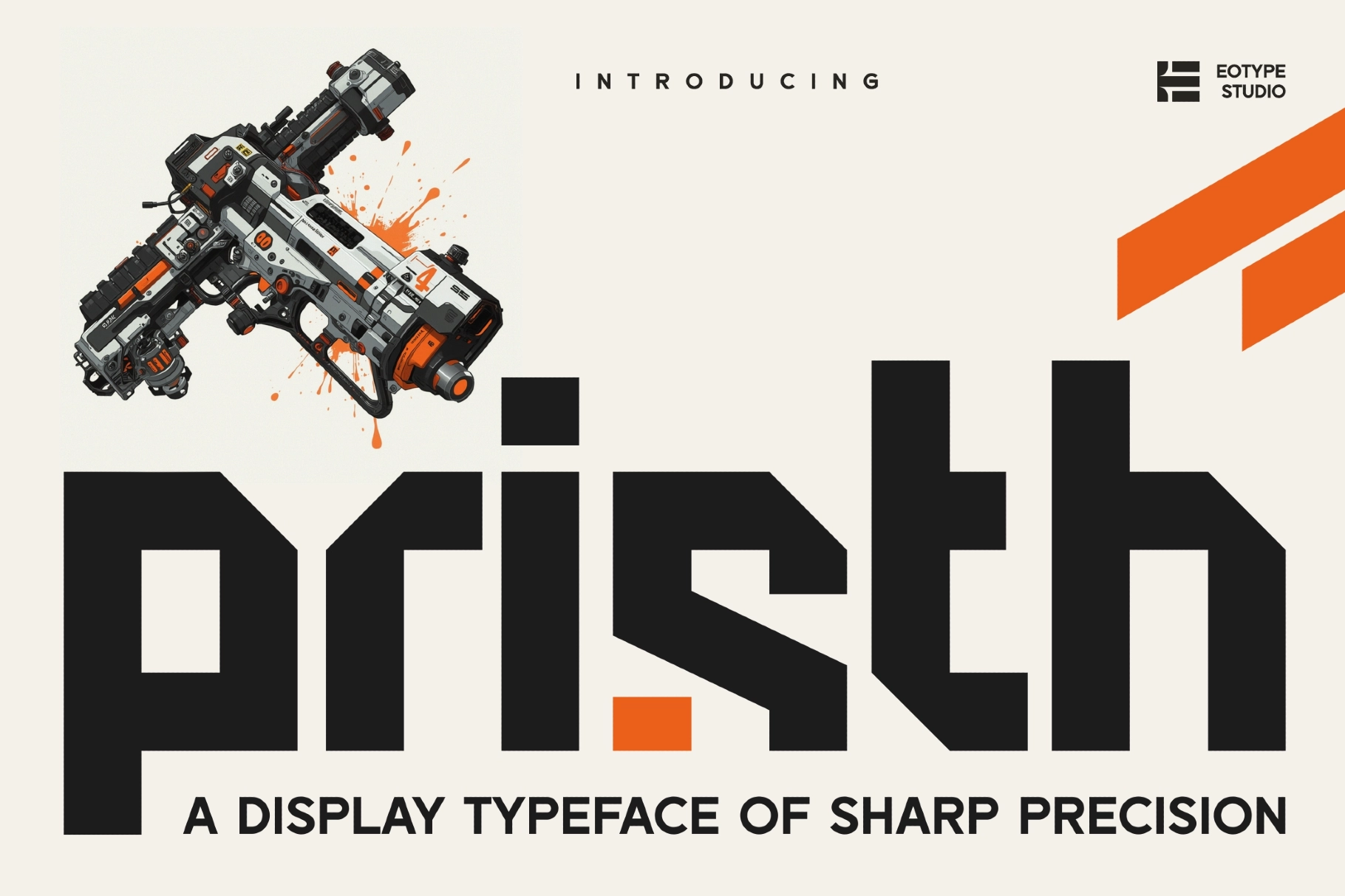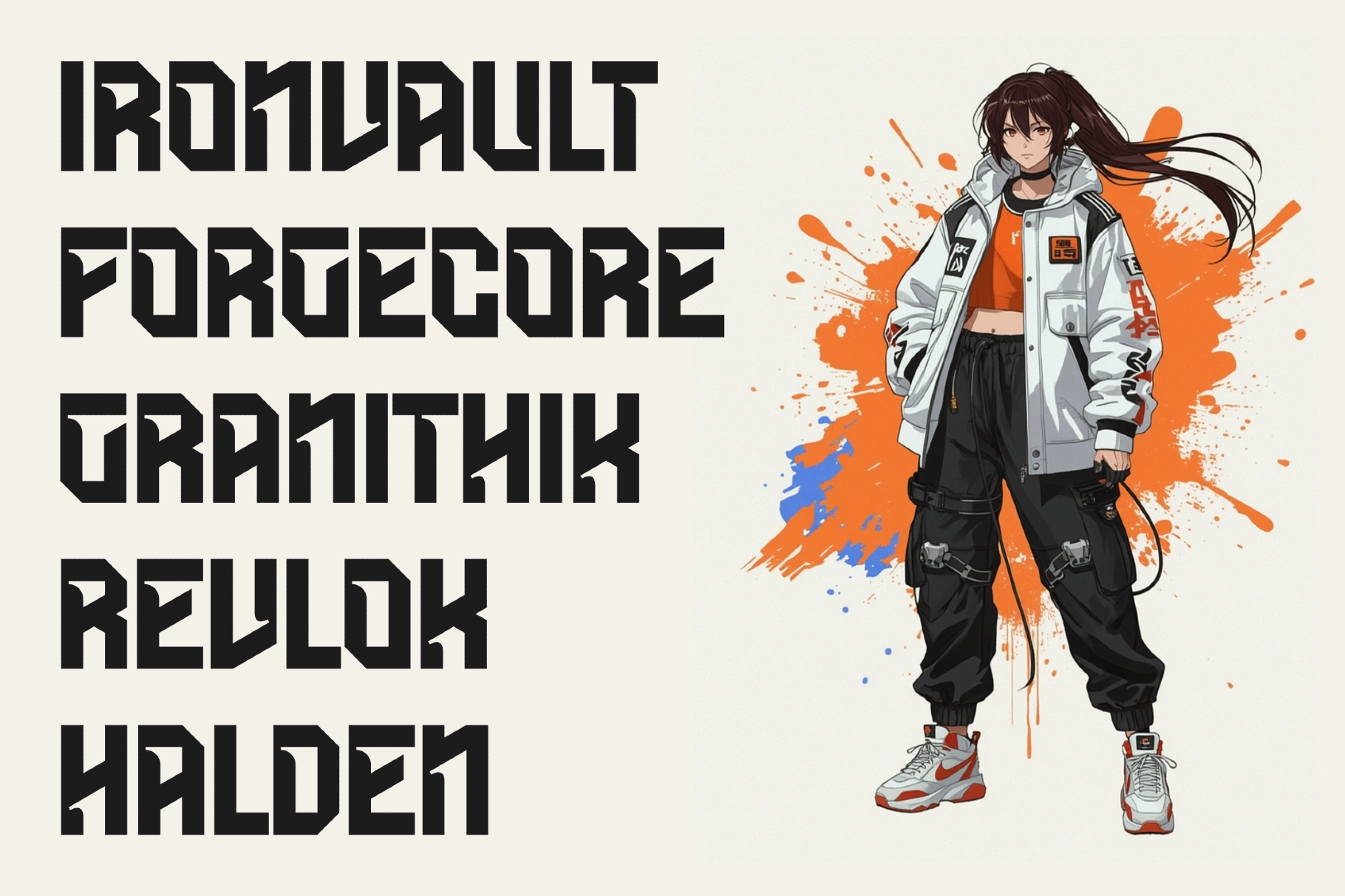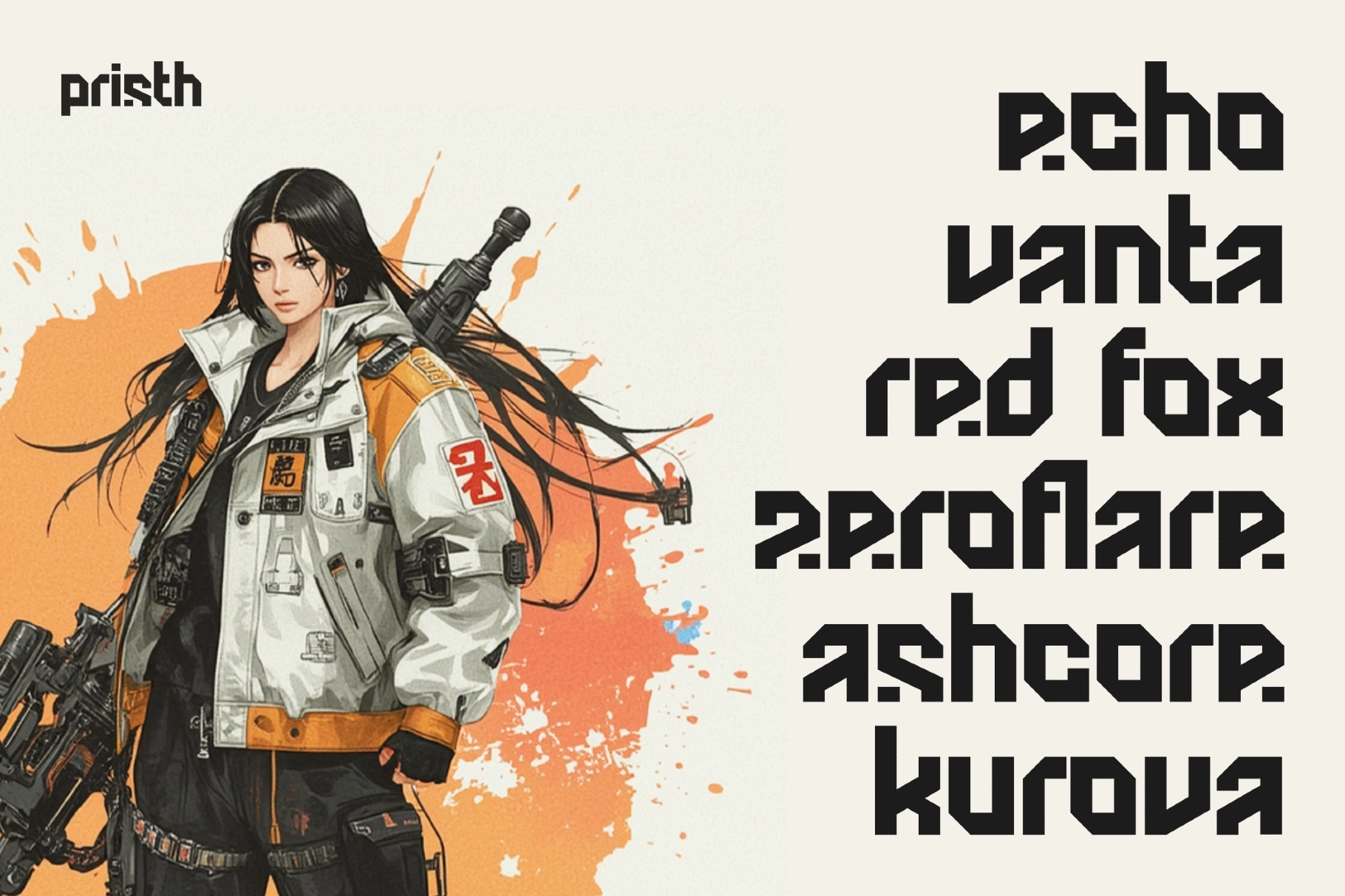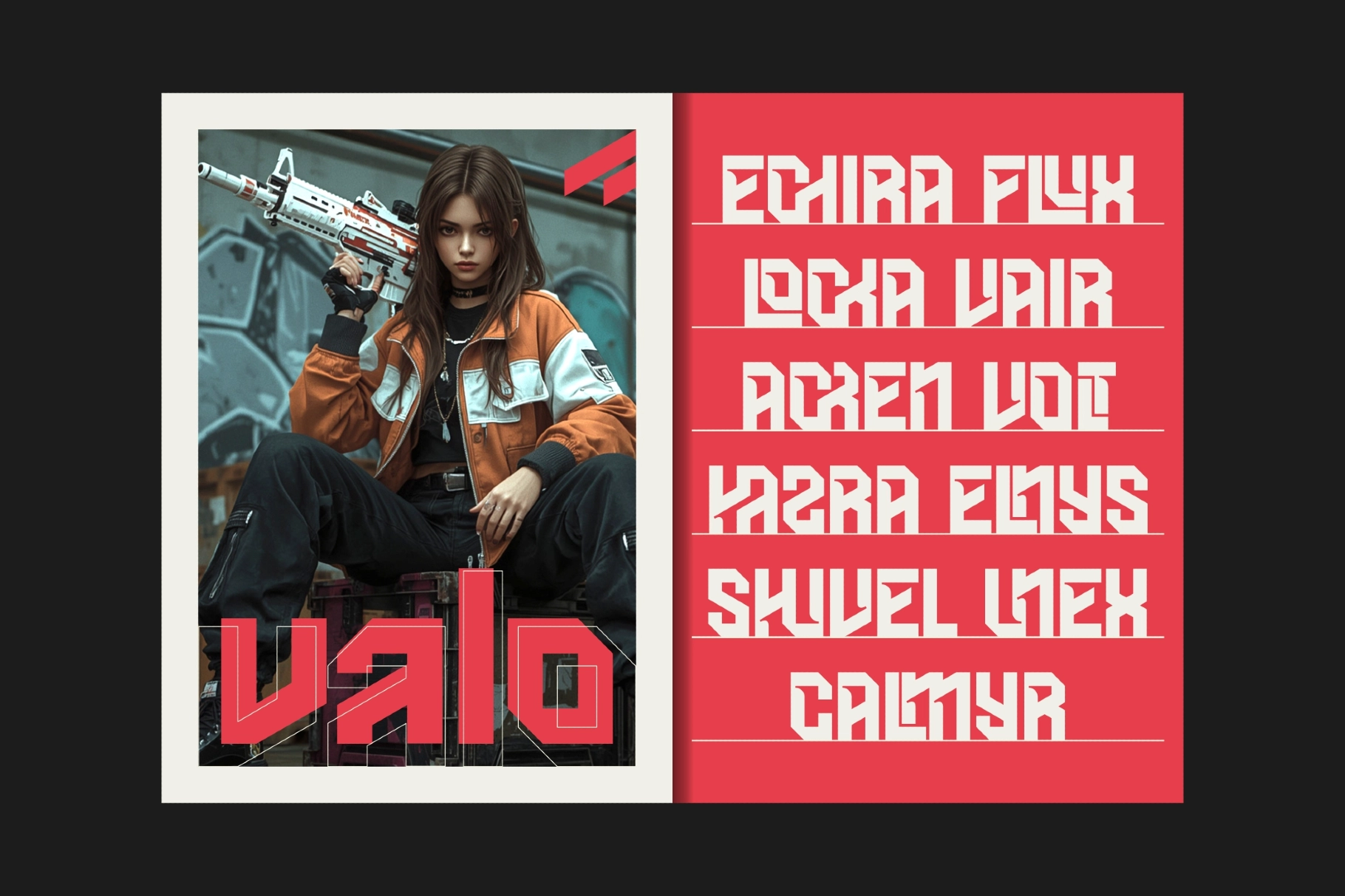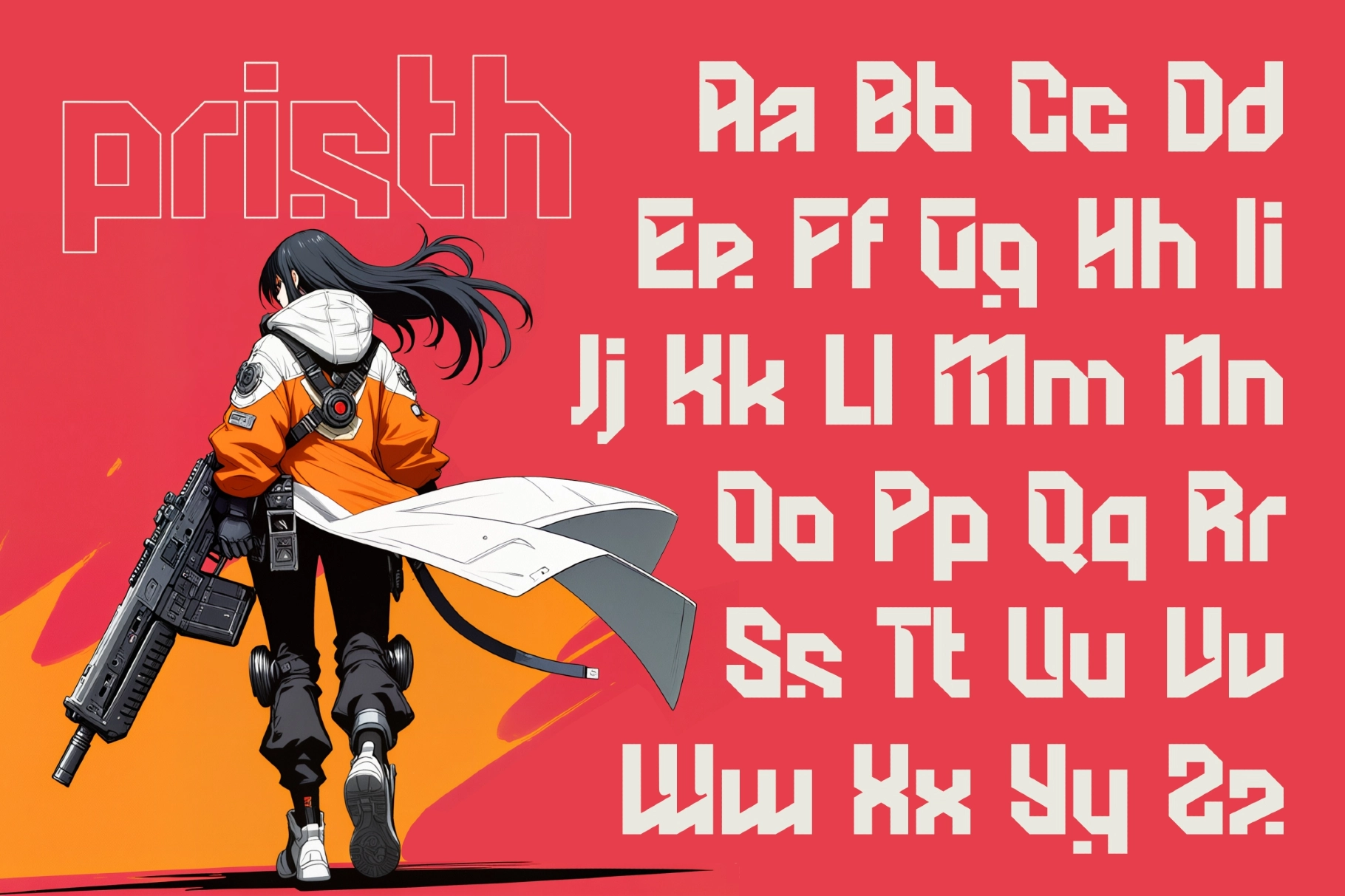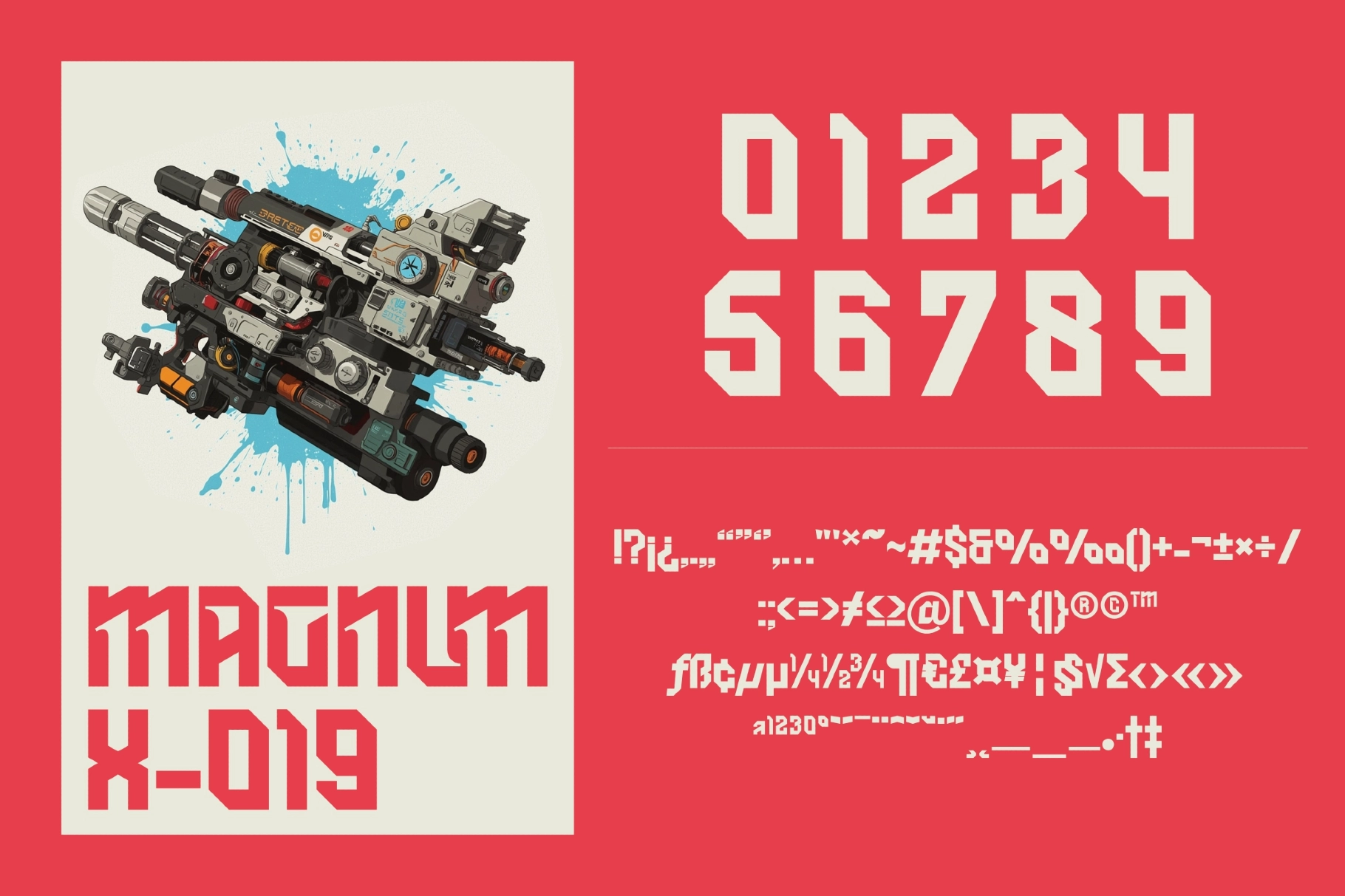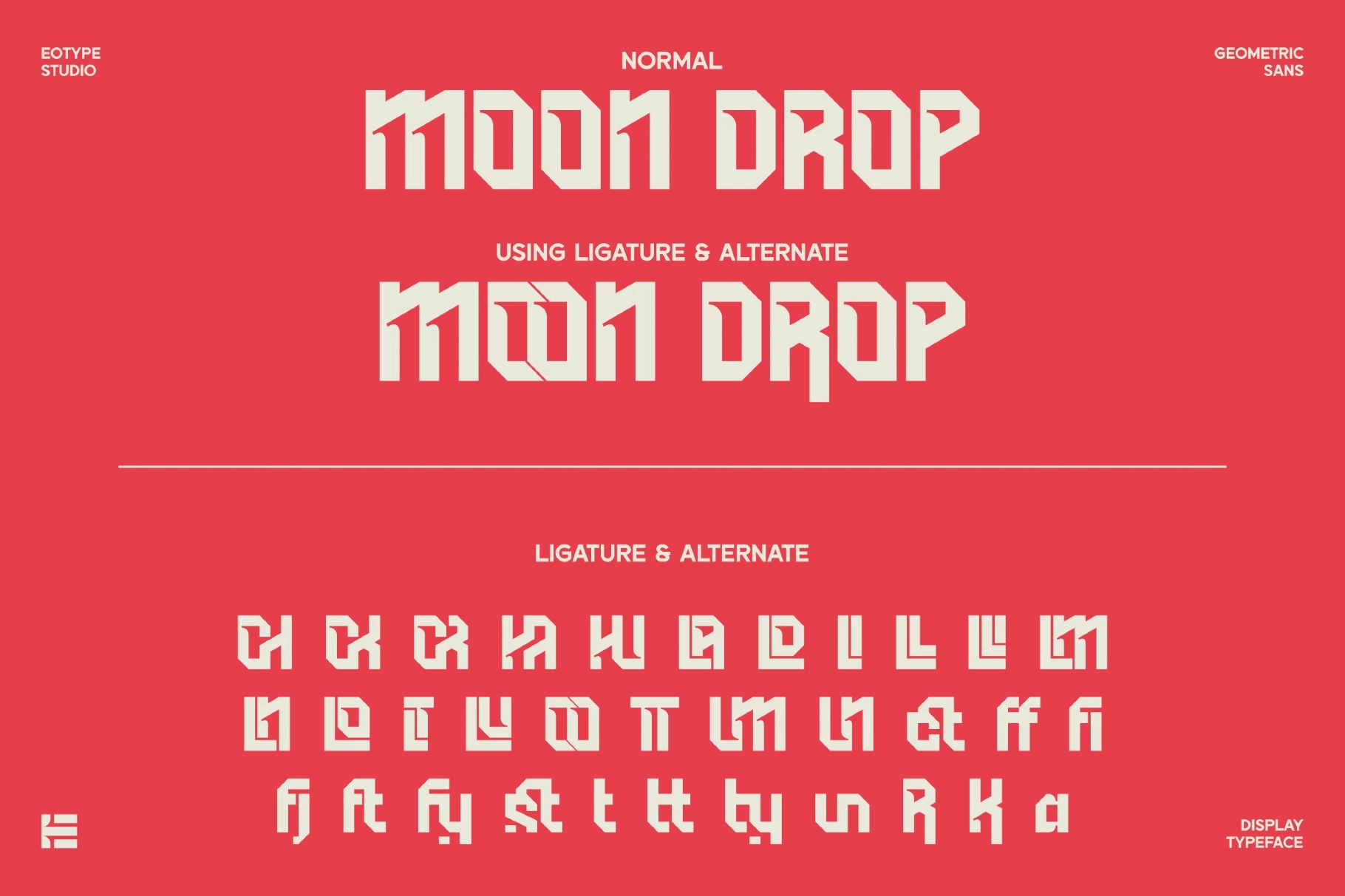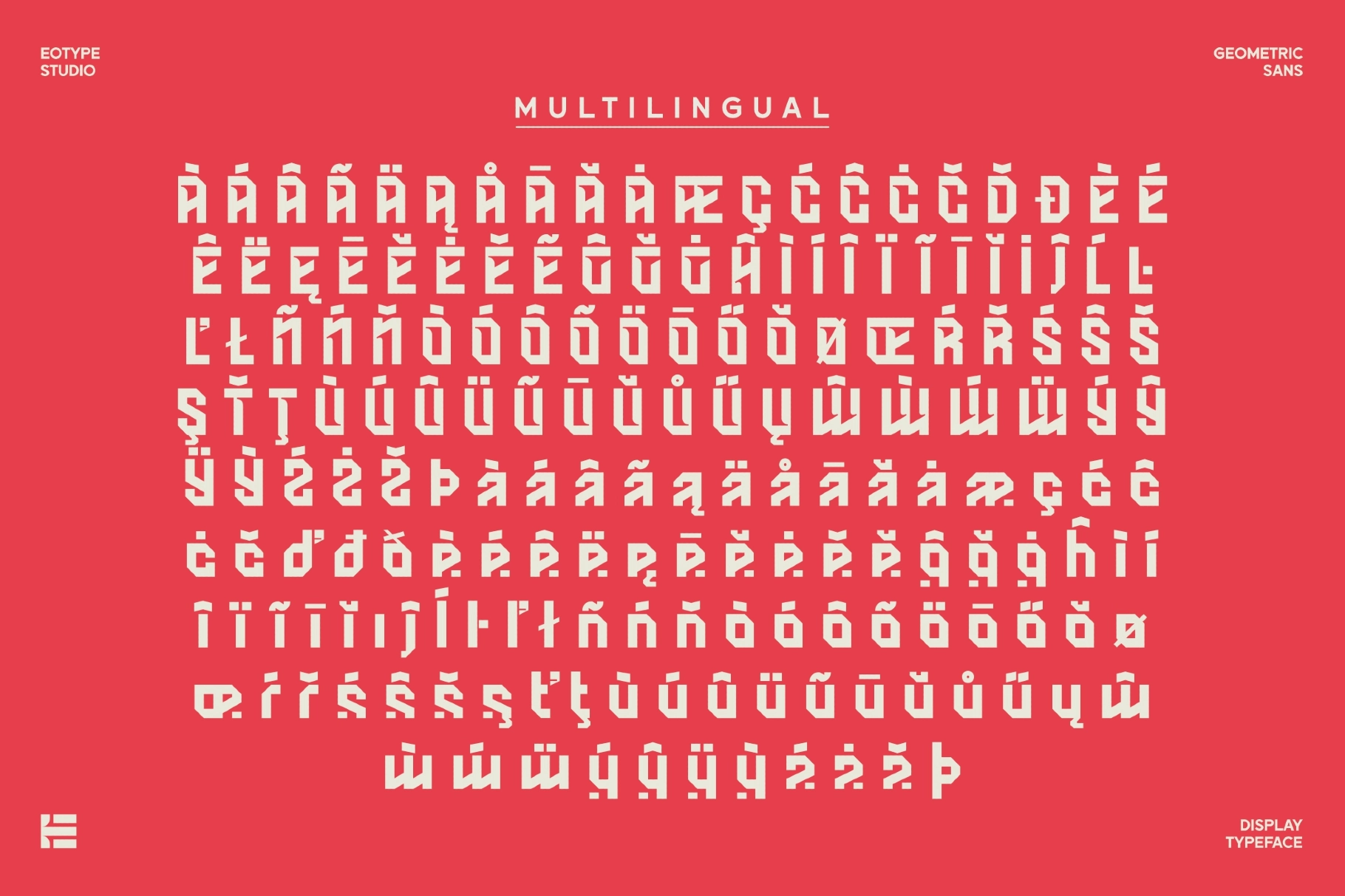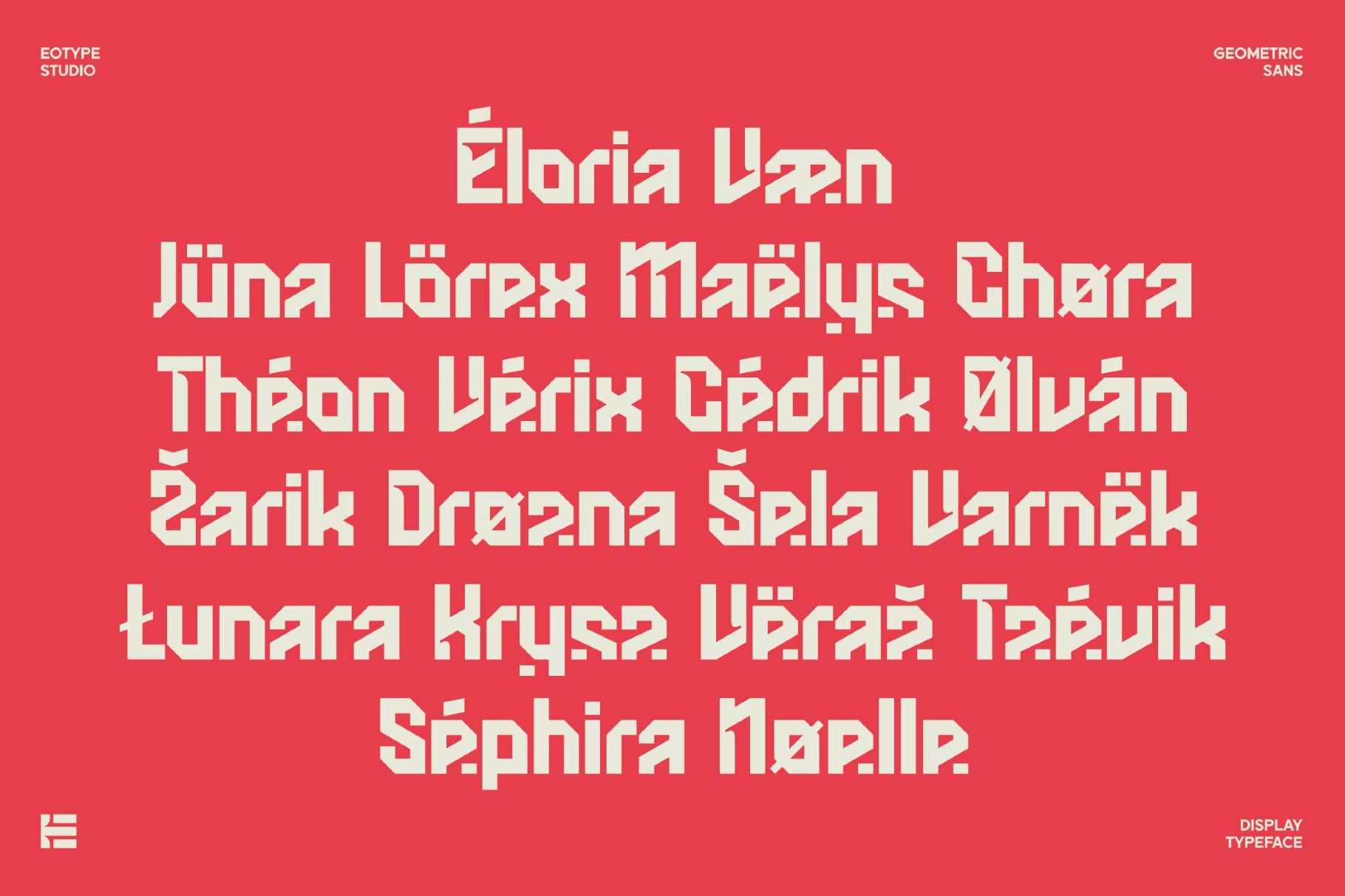
Pristh - Bold Tech Display Font
Pristh
Pristh is a bold tech display font built from angular, blocky letterforms that cut corners at sharp diagonals instead of rounding them off. Brutalist edges and a modular rhythm give every character the same mechanical weight, closer to a weapon schematic than a conventional typeface.
Set in caps or lowercase, Pristh holds up at both poster scale and tight headline settings, and its dense diacritic set keeps that same geometric edge across accented languages. Use it for gaming and esports branding, sports team logotypes, editorial headlines, sci-fi and cyberpunk posters, album covers, streetwear graphics, app and product logos, and more.
- uppercase & lowercase;
- numerals, punctuation & symbols;
- extended multilingual diacritics;
- ligatures and stylistic alternates